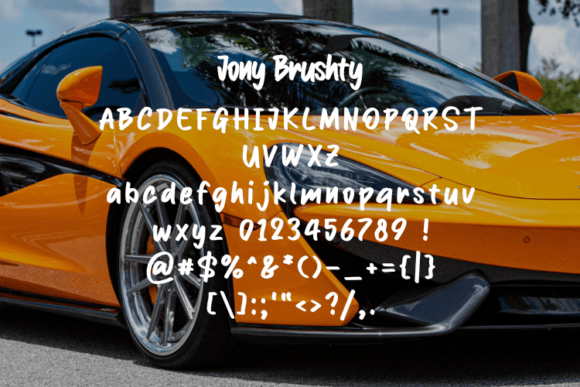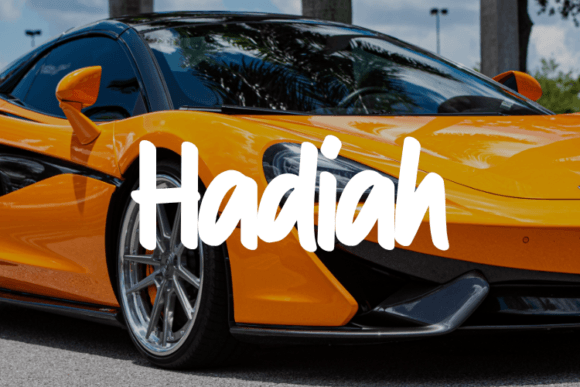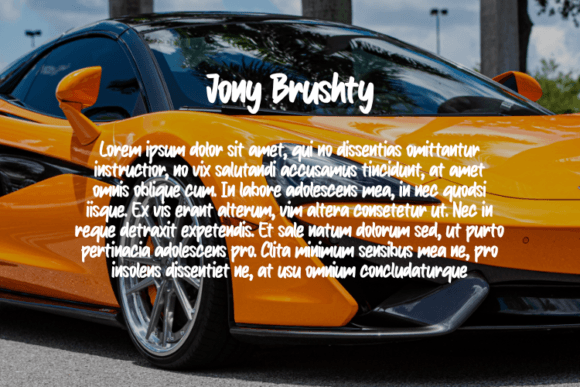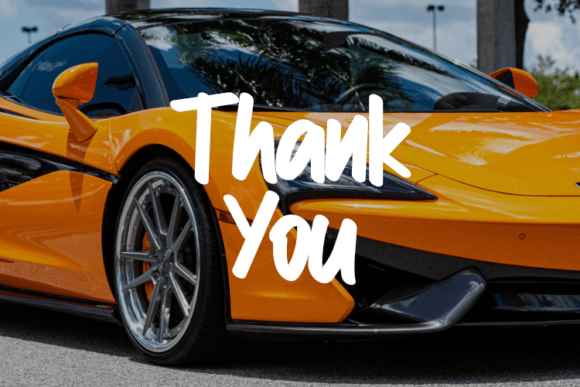
Introduction to Jony Brushty Font
Immerse yourself in the expressive marvel of Jony Brushty, a standout font curated for the creatively inclined.
Tailored for clothing and t-shirt design, this versatile typographical element seamlessly matches any design ethos across all platforms and software Enrich your design palette with Jony Brushty, where aesthetic appeal meets functionality.
Key Features of Jony Brushty Font
Why Choose Jony Brushty Font?
Jony Brushty Font offers exceptional quality and versatility, making it a valuable addition to your design toolkit. Whether you’re creating for personal projects or commercial use, Jony Brushty Font delivers professional results.